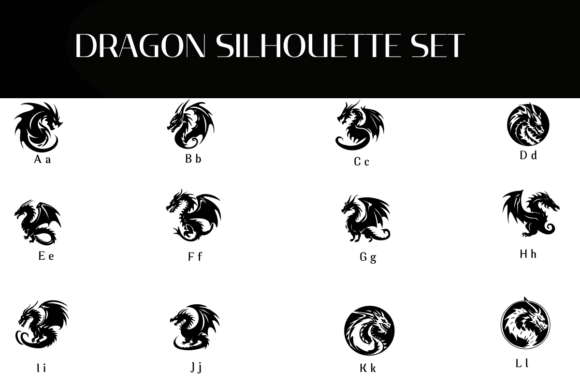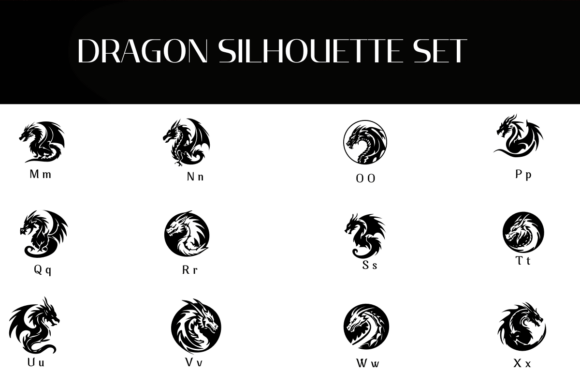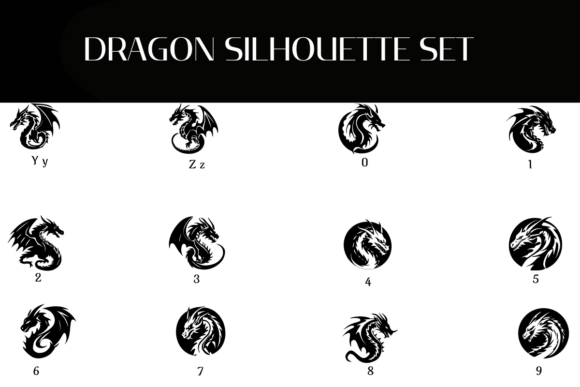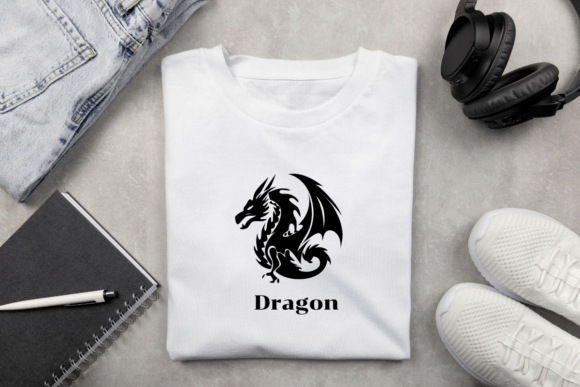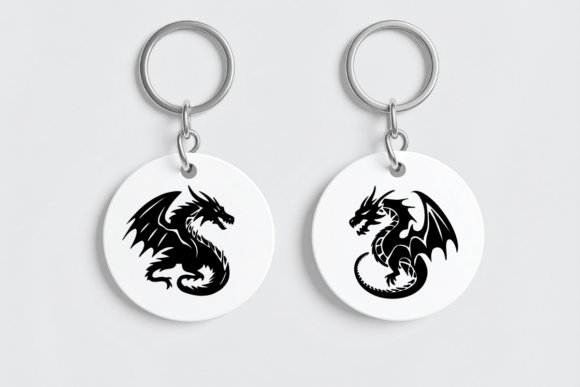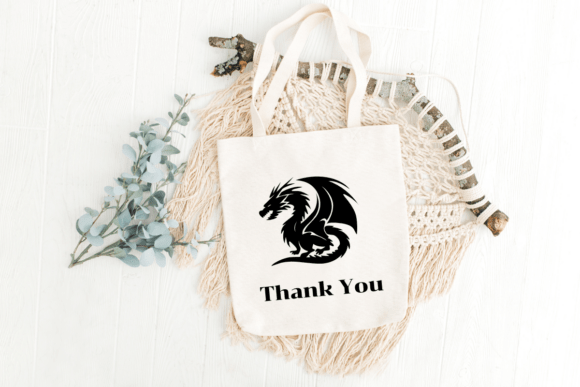
Unleash Your Inner Fantasy Designer
Imagine you’re brainstorming ideas for a fantasy book cover, and suddenly, the perfect image pops into your mind: a majestic dragon soaring through the skies, its scales glistening in the sunlight. The problem is, you’re not a skilled artist, and you don’t have the time to create that image from scratch. That’s where the Dragon Silhouette Set Font comes in – a game-changing tool for designers looking to add a touch of myth and magic to their projects.
This comprehensive typeface is a treasure trove of high-quality silhouettes, ranging from classic Western-style winged dragons to sleek, tribal-inspired serpents and circular emblem designs. With the Dragon Silhouette Set Font, you can “type” your way to a professional logo or decorative border, saving you time and effort in the process.
Dragon Silhouette Set Font Key Features
- Unique Characteristics: The Dragon Silhouette Set Font features a unique, hand-drawn design with intricate details and textures, giving it a distinctive and artistic look.
Dragon Silhouette Set Font Review
The Dragon Silhouette Set Font is a visually striking addition to any design project. ✨ It’s perfect for creating a mystical or fantasy-themed design, and its unique, hand-drawn style sets it apart from more traditional fonts.
The font is well-suited for use in titles, headings, and other areas where a bold, attention-grabbing look is desired. ✨ The silhouetted dragon design is a great touch, adding an extra layer of depth and interest to the font.
While the Dragon Silhouette Set Font is a great addition to any design project, there are a few limitations to consider. ⚠️ The font is not suitable for large blocks of text, as the unique design can become overwhelming and difficult to read.
- The font may not be compatible with all devices or operating systems.
- The design may not be suitable for designs that require a lot of fine detail or intricate typography.
- The font is best used in bold, attention-grabbing contexts, as it can be difficult to read in smaller sizes.
Overall, the Dragon Silhouette Set Font is a unique and visually striking addition to any design project. While it has some limitations, it’s a great choice for designers looking to add a touch of fantasy or whimsy to their work.
Create an eye-catching book cover for a fantasy novel using the Dragon Silhouette Set Font. This font will add a touch of mysticism and ancient magic to your design.
Project 2: Gaming Logo Design
Design a logo for a new gaming company using the Dragon Silhouette Set Font. This font will add a touch of adventure and excitement to your design.